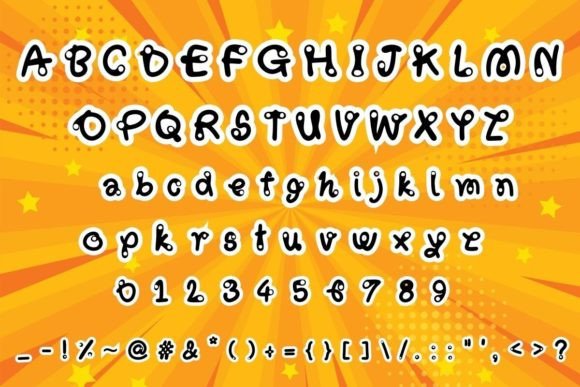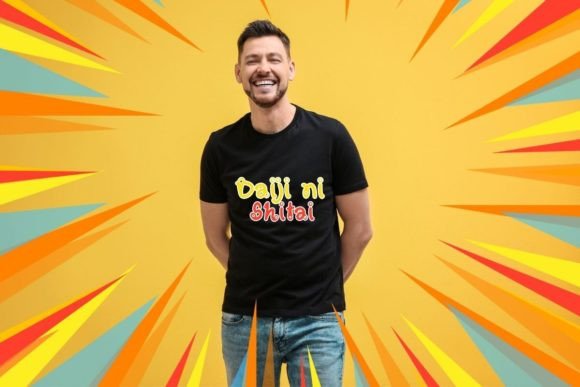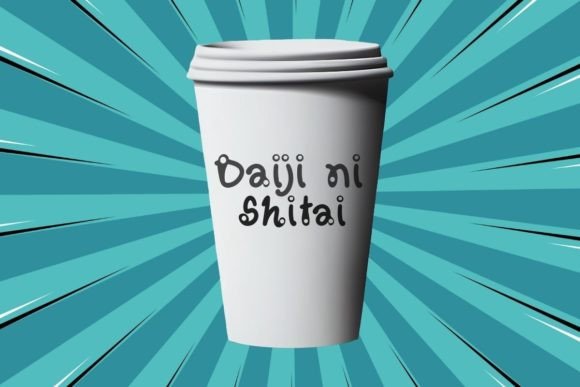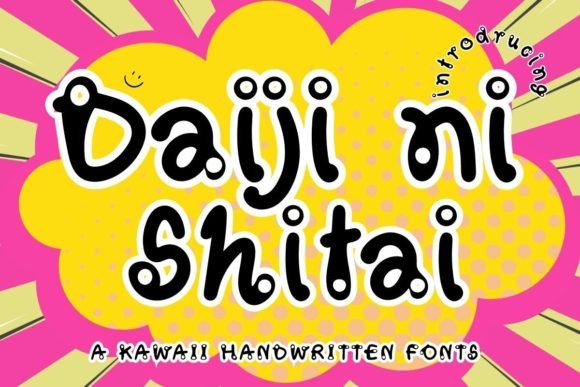
Daiji Ni Shitai Font: The Sweet and Friendly Handwritten Font for Your Creative Projects
Are you a designer or crafter looking for a font that can add a personal touch to your creative projects? Look no further than Daiji Ni Shitai, a sweet and friendly handwritten font that is perfect for a wide range of designs. With its natural and unique style, Daiji Ni Shitai is incredibly versatile and can be used in a variety of contexts, from digital projects to print materials.
What Makes Daiji Ni Shitai Special?
Daiji Ni Shitai is a handwritten font that stands out from the crowd due to its distinctive and charming style. Its natural and effortless look makes it perfect for designers and crafters who want to add a personal touch to their work. Whether you’re creating a logo, a poster, a social media graphic, or a craft project, Daiji Ni Shitai is sure to make your design stand out.
The Benefits of Using Daiji Ni Shitai
So why should you choose Daiji Ni Shitai for your next project? Here are just a few benefits of using this amazing font:
- Unique and eye-catching: Daiji Ni Shitai is a one-of-a-kind font that is sure to grab attention. Its distinctive style makes it perfect for designers and crafters who want to create unique and eye-catching designs.
- Versatile: Daiji Ni Shitai is incredibly versatile and can be used in a wide range of contexts, from digital projects to print materials. Whether you’re creating a logo, a poster, or a social media graphic, Daiji Ni Shitai is the perfect choice.
- Easy to read: Despite its handwritten style, Daiji Ni Shitai is incredibly easy to read, making it perfect for designs that require a lot of text.
- Perfect for crafty projects: Daiji Ni Shitai is a great choice for crafty projects, such as scrapbooking, journaling, and card making.
How to Use Daiji Ni Shitai in Your Designs
Using Daiji Ni Shitai in your designs is easy! Here are a few tips to get you started:
- Pair it with other fonts: Daiji Ni Shitai looks great when paired with other fonts. Try pairing it with a bold font for a striking contrast.
- Use it for headings and titles: Daiji Ni Shitai is perfect for headings and titles, where its unique style can really shine.
- Experiment with colors: Daiji Ni Shitai looks great in a variety of colors. Experiment with different colors to find the one that works best for your design.
Inspiration for Your Daiji Ni Shitai Projects
Still not sure how to use Daiji Ni Shitai in your designs? Here are a few ideas to get you started:
- Create a logo: Daiji Ni Shitai is perfect for logos, where its unique style can really shine.
- Make a poster: Daiji Ni Shitai is a great choice for posters, where its bold and eye-catching style can really make an impact.
- Design a social media graphic: Daiji Ni Shitai is perfect for social media graphics, where its friendly and approachable style can really help to engage your audience.
- Create a craft project: Daiji Ni Shitai is a great choice for crafty projects, such as scrapbooking, journaling, and card making.
In conclusion, Daiji Ni Shitai is a sweet and friendly handwritten font that is perfect for designers and crafters who want to add a personal touch to their creative projects. With its natural and unique style, Daiji Ni Shitai is incredibly versatile and can be used in a wide range of contexts. Whether you’re creating a logo, a poster, a social media graphic, or a craft project, Daiji Ni Shitai is sure to make your design stand out. So why not give it a try and see what amazing things you can create?
The only limit is your imagination!